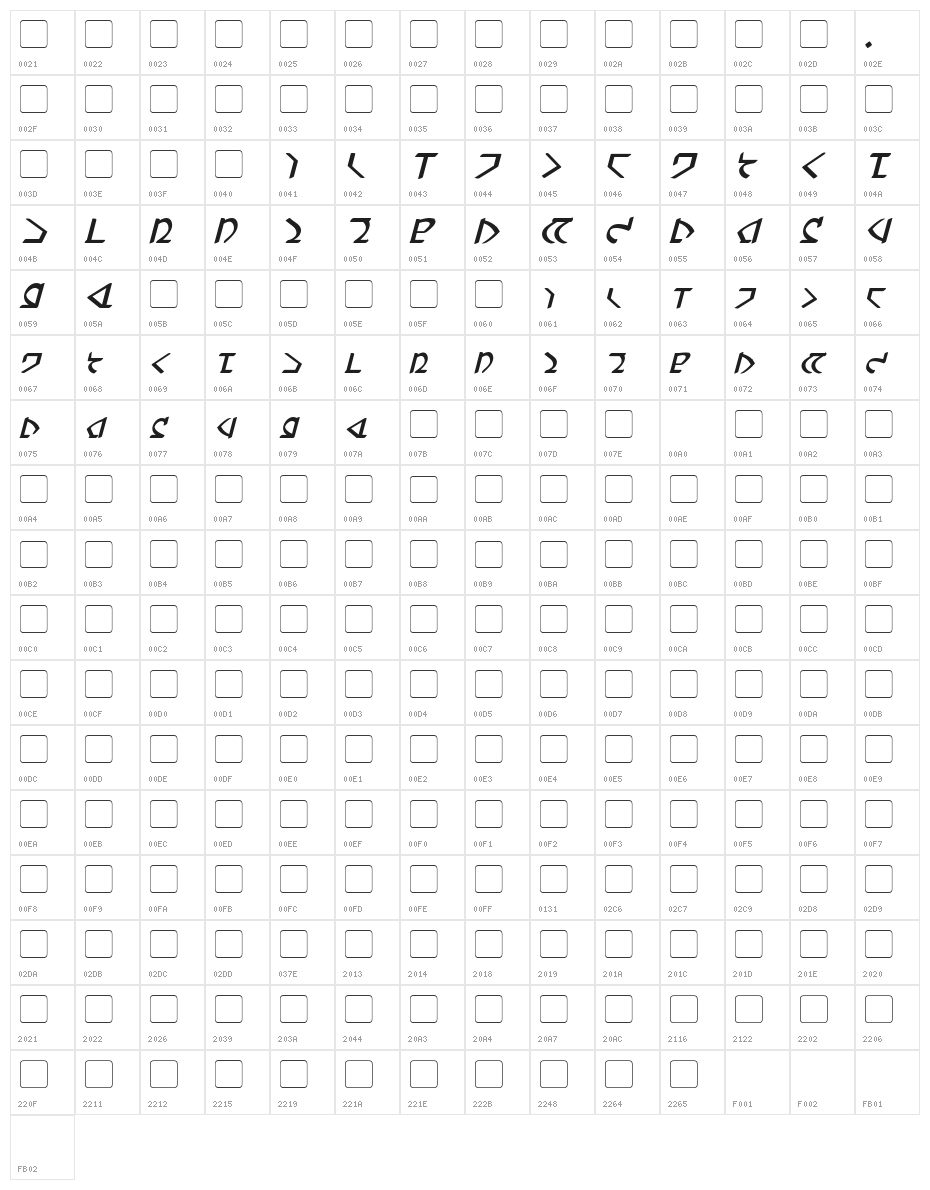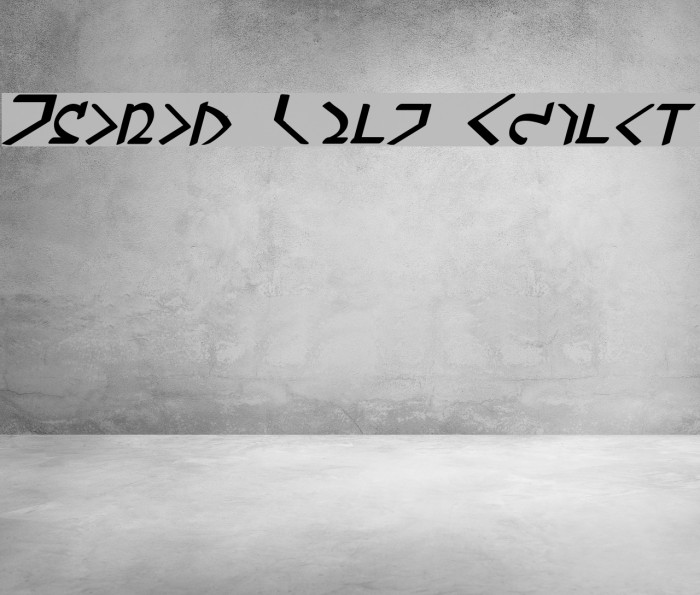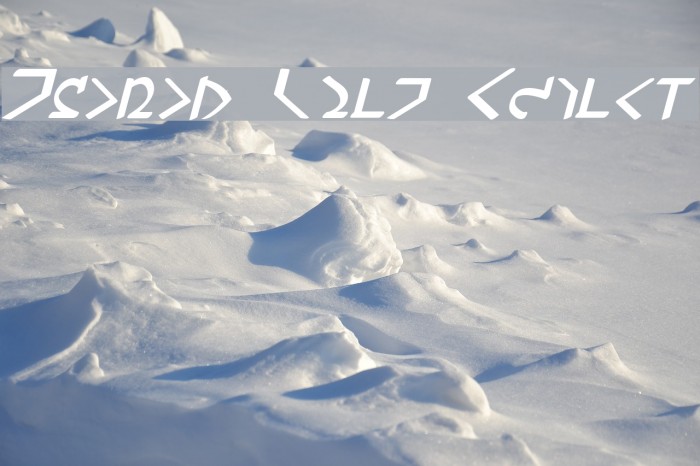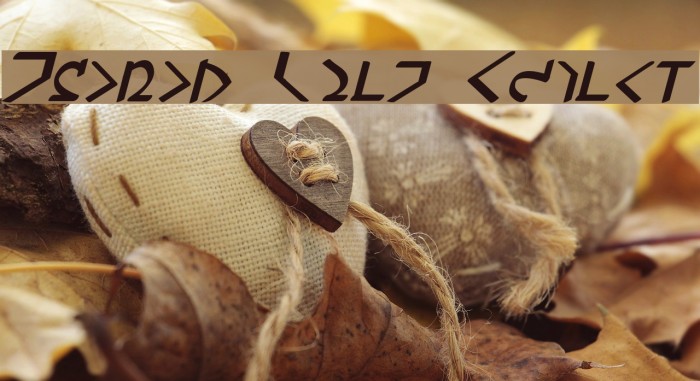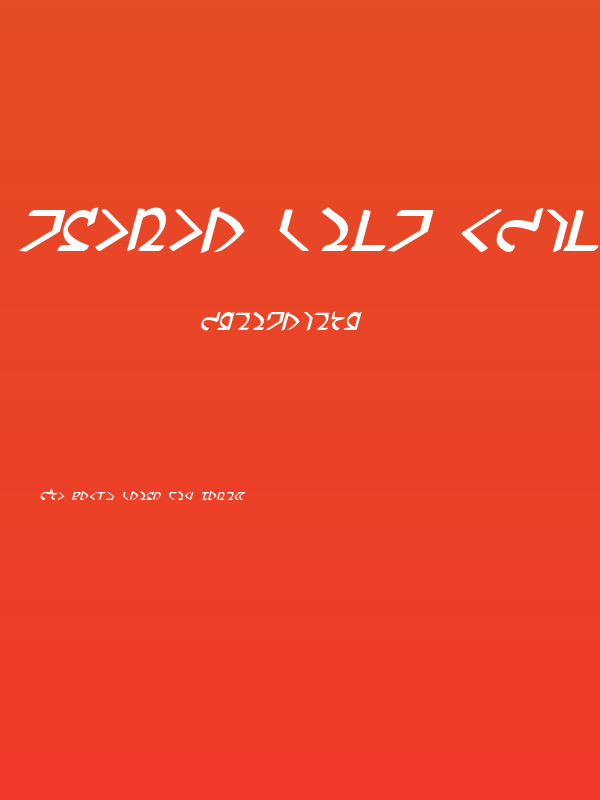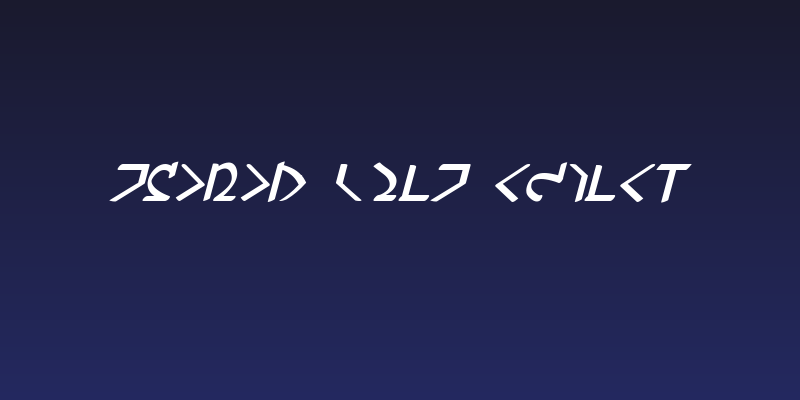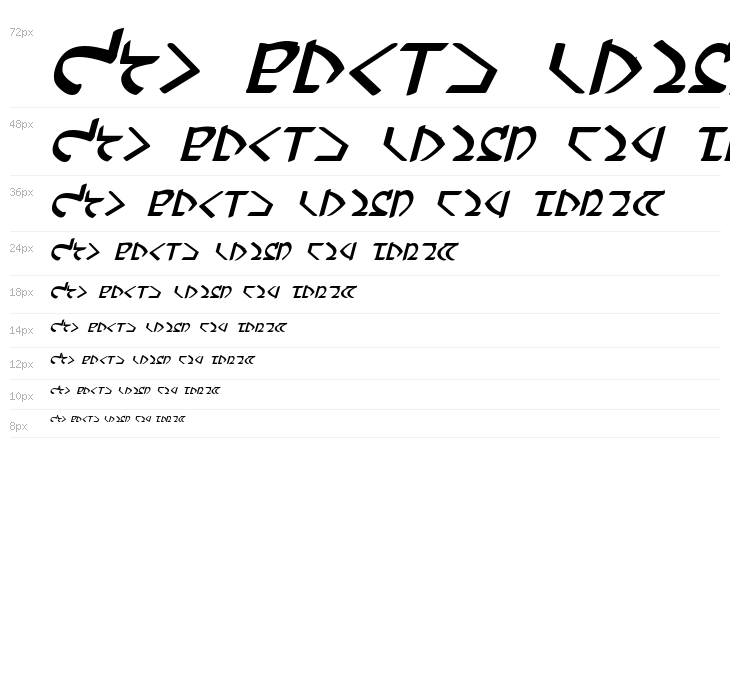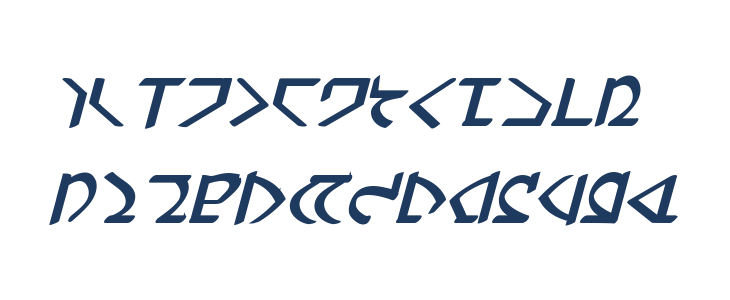
Dwemer Bold Italic Font
Dwemer Bold Italic Description
This font features a unique, angular design reminiscent of ancient or mystical scripts. The characters are bold and italicized, giving them a dynamic and striking appearance. The sharp edges and geometric shapes create a futuristic and enigmatic feel, making it stand out in any design. The font lacks traditional curves, opting instead for straight lines and sharp angles, which contribute to its distinctive style. The spacing between characters is relatively tight, enhancing the compact and cohesive look of the text. This font is ideal for projects that require a touch of mystery or a connection to fantasy themes.
| Overall Style | Futuristic, Mystical |
| Proposed Projects | Ideal for video game titles, fantasy book covers, movie posters, or any project requiring a mystical or ancient aesthetic. |